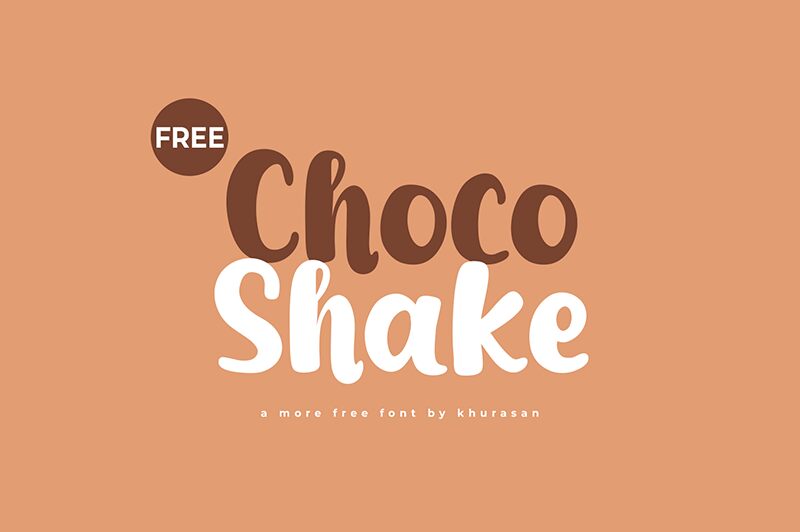
Choco Shake font by Khurasan is a delightful display typeface that combines bold weight with a playful, cartoonish style. Its round, whimsical characters bring a sense of joy and creativity, making it perfect for projects that require an expressive and lively touch. This free font is ideal for use in children's books, playful posters, or eye-catching branding materials.
The bold characteristics of Choco Shake enhance its visibility and impact, ensuring your message stands out. Download this unique font to add flair and personality to your design repertoire. Whether you're crafting a vibrant logo or an engaging social media graphic, Choco Shake offers the perfect blend of fun and functionality.